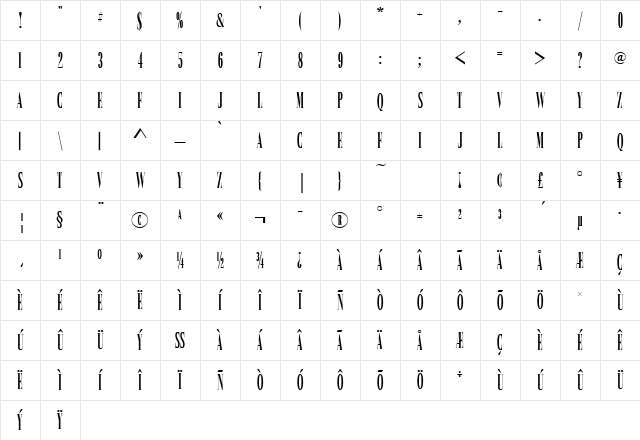
BasiliaComDMed Regular
Design Context for BasiliaComDMed
BasiliaComDMed is a composed and adaptable typeface that performs quietly and consistently across a wide range of design contexts.
Pro Tip: Use BasiliaComDMed in both headline and body roles to test its range before committing to a single application.